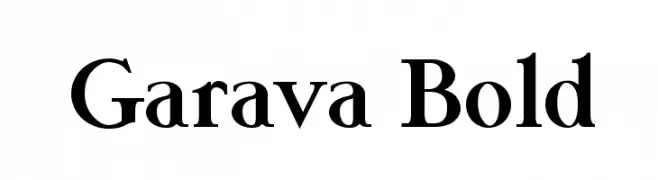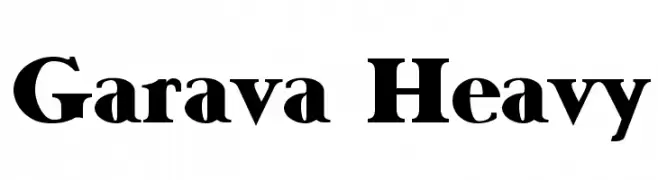
( Fonts by softerviews.org )
A bold, heavy serif font with strong strokes and classic elegance.
( Fonts by softerviews.org )
A bold, italic serif font with medium contrast and elegant slant.
( Fonts by softerviews.org )
An elegant serif italic font with smooth curves and high contrast.
( Fonts by softerviews.org )
A bold serif font with classic elegance and refined strokes.